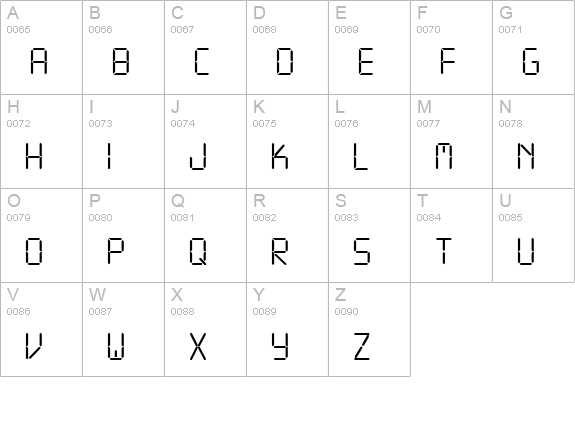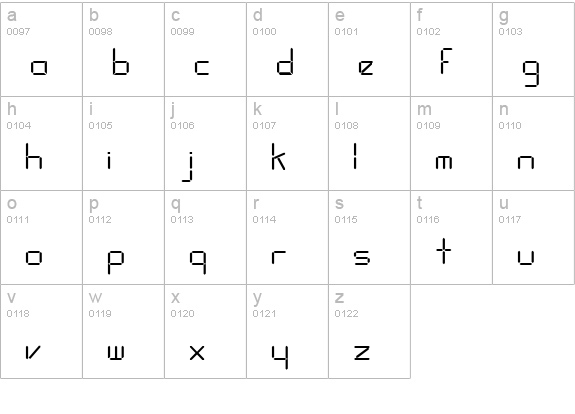
Gemini Font Details
Gemini font is a modern and stylish typeface that exudes elegance and versatility. Its sleek lines and balanced proportions make it perfect for a wide range of design projects, from branding to editorial design. With its clean and contemporary aesthetic, Gemini font is sure to add a touch of sophistication to any project. And the best part? Gemini font is completely free to download at FontsMarket.com. Whether you're a professional designer looking for a new typeface to add to your collection or a hobbyist looking to enhance your creative projects, Gemini font is the perfect choice. Download it today and elevate your designs with this stunning and versatile typeface.